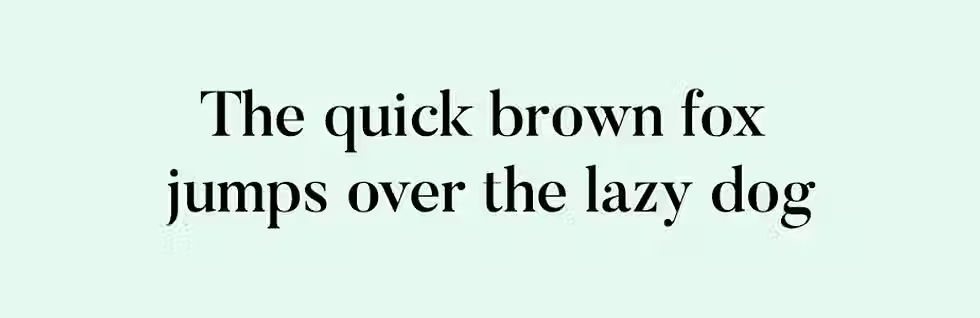
17 best free fonts for your next design
When it comes to finding the perfect font for your graphic design project, knowing where to start can save you hours of searching. That’s why we’ve rounded up the best free fonts to help you create standout designs without breaking the bank. This collection covers everything from elegant serifs and clean sans-serifs to artistic display fonts.
Fonts aren’t just about style; they play a big role in how your designs are received. Font psychology shows how a thoughtful typeface can spark emotion, tell a story, or elevate your visuals from good to unforgettable. Ready to discover the fonts that could take your next project to the next level? Let's dig in.
17 best free fonts for your next design project
01. Restora
Restora is a serif type family created by Nasir Udin. It includes 16 fonts, two of which are free - Restora Extra Light and Restora Thin Italic.
Inspired by old-style roman serifs, the Restora type family is complete with different ligatures, swashes and alternates, allowing for a unique and diverse use of typography. There are also small caps and old-style numerals, as well as many other features, that amount to a total of over 700 glyphs per style.
Best for: Elegant invitations, traditional book cover designs, timeless wedding stationery, refined branding projects, elevated editorial layouts and sophisticated marketing strategy materials.
02. Misto Font
Designed by Katerina Korolevtseva, Misto font is a tribute to her Ukrainian hometown, Slavutych. Its sharp contrasts in stroke width reference the town’s postmodernist architecture and utopian ideals. It’s a multilingual display sans serif, supporting both Latin and Cyrillic.
Best for: Bold event posters, eye-catching marketing assets, contemporary logo designs, vibrant social media graphics and trendy packaging typography.
03. Okta Neue
Okta Neue is a geometric grotesk typeface designed by Eugene Tantsurin and distributed by Groteskly Yours. The full typeface consists of 22 styles, two of which are free to download - Ultra Light and Black Italic.
This sans serif has a neutral look, so it can be used across various applications and needs, and works well in different font pairings. It's a multilingual font that supports Latin, Cyrillic, Greek and Hebrew and has a total of 1,293 characters per each style.
Best for: Professional resumes, clean and modern branding, minimalist app interfaces, clear infographics, tech-focused websites and straightforward corporate materials.
04. Argesta
Designed by independent typeface foundry Atipo, Argesta is made up of nine different styles, one of which is available for free download (the Display Regular Font). As a token of appreciation for the hard work that went into its design, sharing news of the font via Twitter or Facebook is required in order to complete its download.
Best for: Luxurious magazine spreads, upscale wedding invites, heritage branding projects, statement book covers and fine art prints designed with timeless sophistication.
05. Disket Mono
Disket Mono is a display monospaced typeface designed by Mariano Diez. Its design is modular and grid-based. The designer behind the font attributes his typographical inspiration to geometry and modernist architecture. The typeface consists of two weights, regular and bold, with 614 characters in each.
Disket Mono is also a multilingual font, supporting a total of 20 languages. The Cyrillic set for this typeface was designed by Denis Ignatov.
Best for: Futuristic tech branding, unique coding-related designs, experimental posters, niche digital art, creative zines and modern catalogs with a bold edge.
06. Butler
Butler is a type family of seven weights, ranging from ultra light to black, all free for personal and commercial use. Created by Fabian De Smet and released for download on his design portfolio website, the typeface contains both regular and stencil variations.
Serif fonts have decorative strokes at the ends of letters, giving them a traditional look, often used in print for readability. Sans serif fonts lack these strokes, appearing modern and clean, making them ideal for digital screens. When deciding on serif vs sans serif, designers often choose serif for a classic feel or sans serif for a contemporary style.